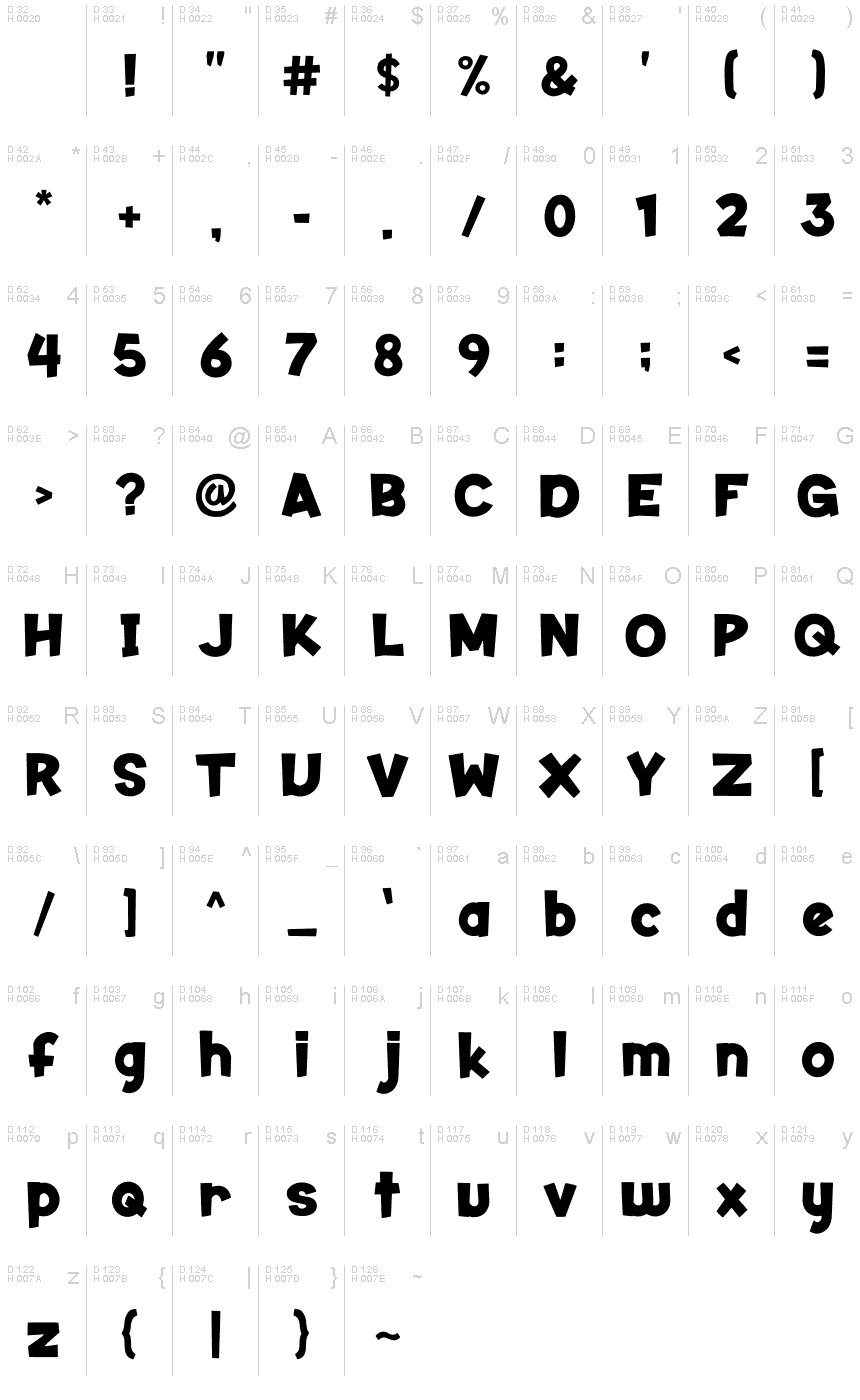
SNACKID
Snackid, designed by Typeline Studio, is a playful and vibrant display font that brings life to any project.
With its extra-bold weight and semi-expanded width, Snackid is perfect for eye-catching headlines, logos, and packaging designs. Its comic style adds a touch of whimsy and fun to children's books, party invitations, and creative advertisements. Whether you're designing for a candy store or an animated movie poster, Snackid will bring your project to life with its boldness and unique personality.